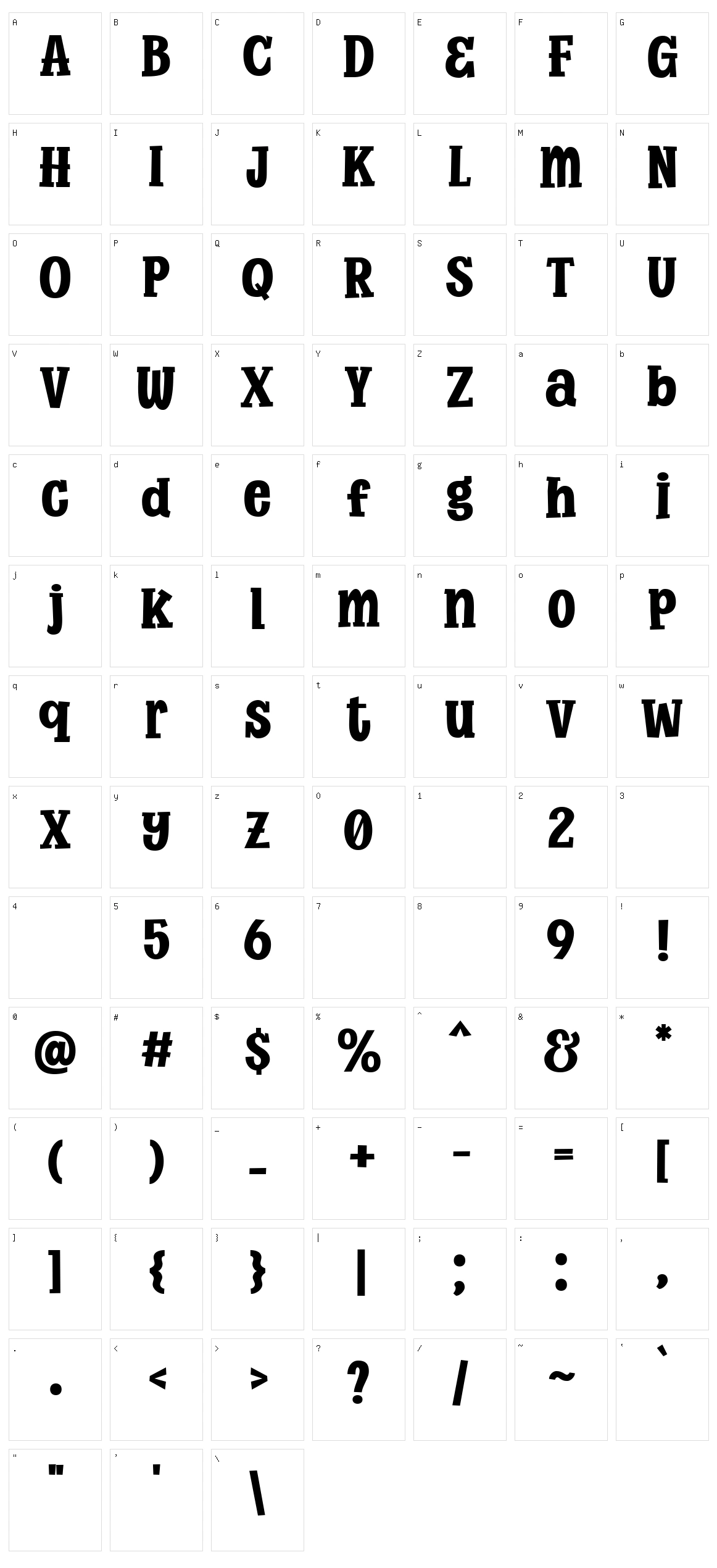
Super Cedar: This bold serif font adds a touch of whimsy to your headlines. It's perfect for making a statement that's both impactful and lighthearted.